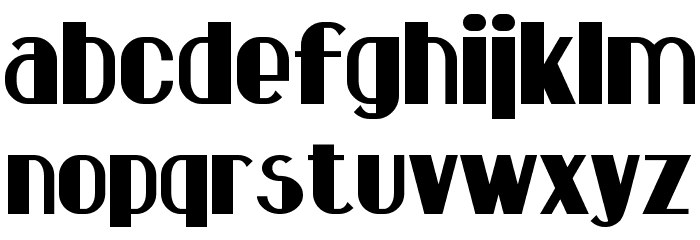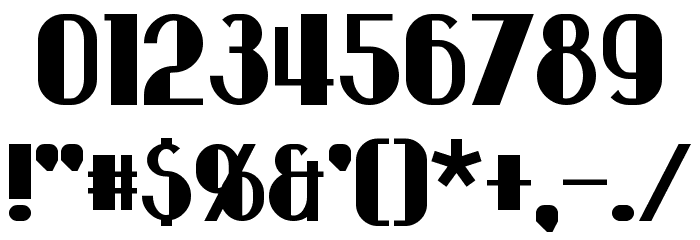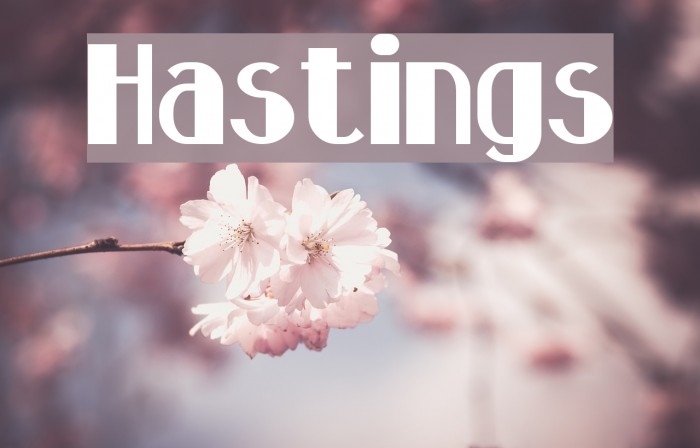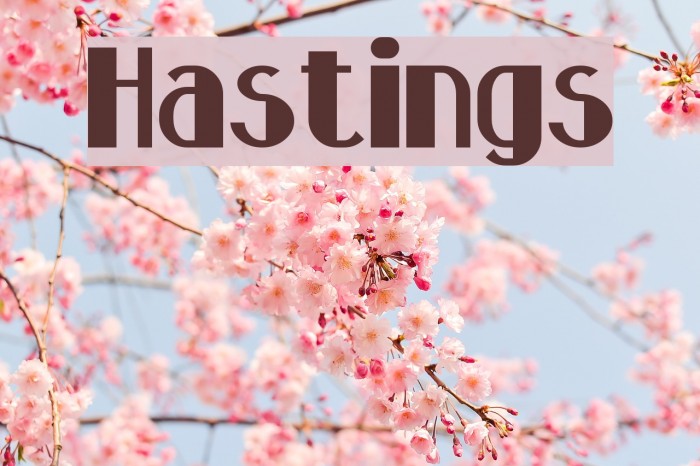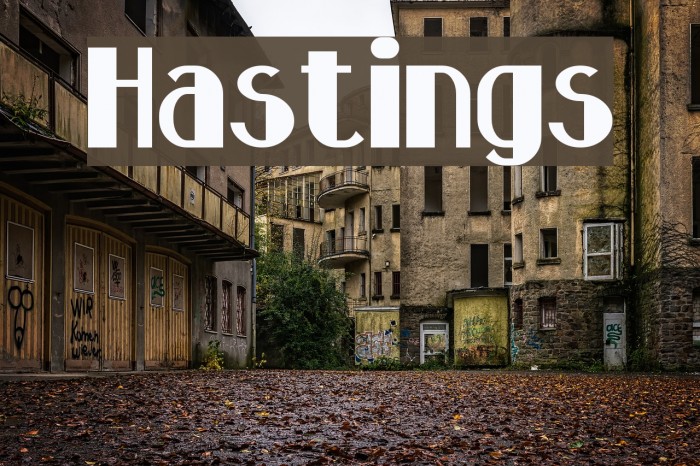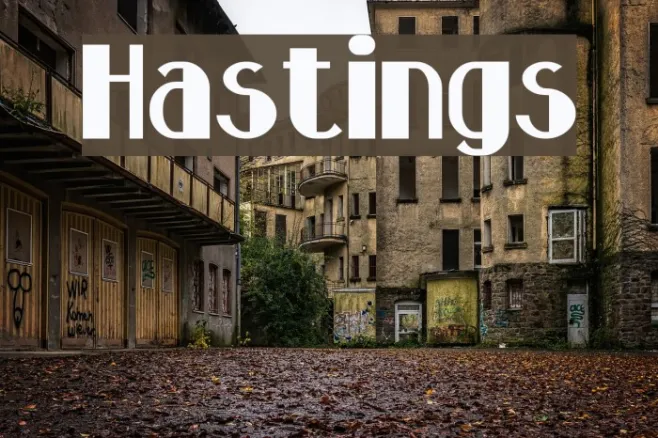
Hastings Font
This font features a bold and striking design with a modern flair. The uppercase letters are characterized by strong vertical lines and subtle curves, giving them a robust and impactful appearance. The lowercase letters maintain a consistent style, with a slightly more playful and rounded form. The numerals are bold and easily legible, making them suitable for various applications. Special characters are designed to complement the overall aesthetic, ensuring a cohesive look across all text elements. The font's unique style makes it ideal for projects that require a strong visual presence.
A bold, modern font with strong vertical lines and subtle curves.
- Proposed Projects: Ideal for branding, advertising, poster design, and headlines.